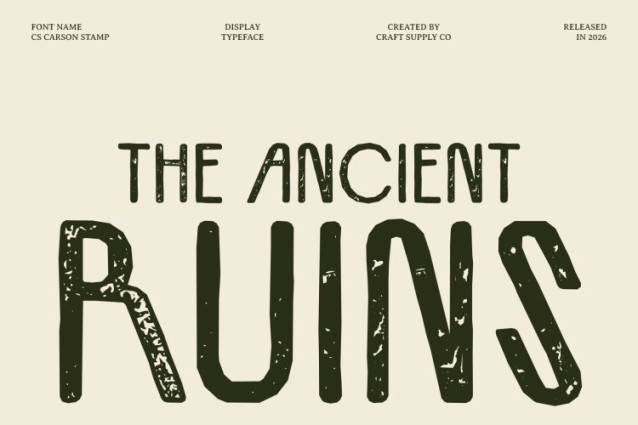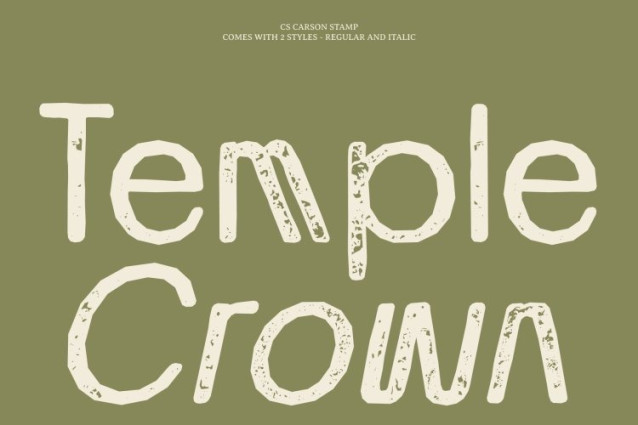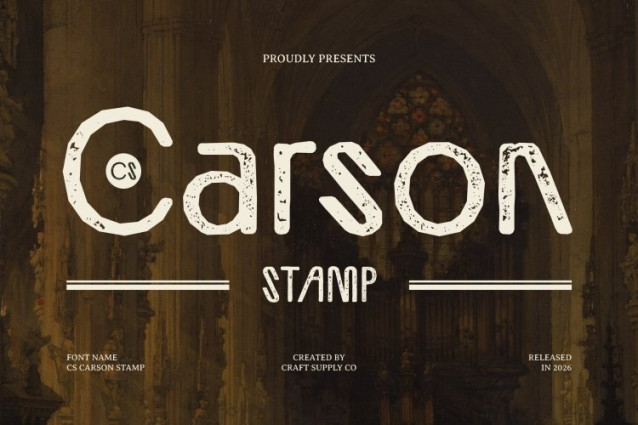
CS Carson Stamp Font
CS Carson Stamp Font – This is a modern sans-serif font that embodies contemporary sophistication through clean lines and balanced geometric shapes. Its sleek and minimalist construction creates a refined visual presence suitable for modern design environments. Enhanced with a subtle stamp effect, the font gains a textured vintage character that introduces depth and visual interest while maintaining its modern clarity.
Minimalist Structure with Distressed Stamp Detail
The carefully crafted proportions of excellent readability and a polished, professional look. The added stamp effect introduces slightly worn edges and organic ink-like textures, reminiscent of traditional stamped printing. This combination blends modern precision with a handcrafted, retro-inspired finish that adds personality to the otherwise clean design.
Balanced Design for Modern Communication
This font maintains a harmonious balance between simplicity and character. Its minimalist structure ensures clarity across various layouts, while the textured surface provides a distinctive aesthetic that feels both contemporary and timeless.
Perfect for Branding, Web, and Editorial Design
Ideal for branding, web design, editorial layouts, packaging, and promotional materials, this font delivers a modern yet expressive typographic voice. Its sleek geometry combined with vintage stamp texture makes it a versatile choice for projects that seek both professional sophistication and subtle artistic character.